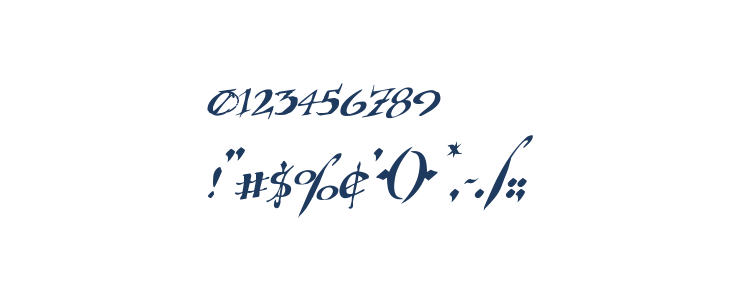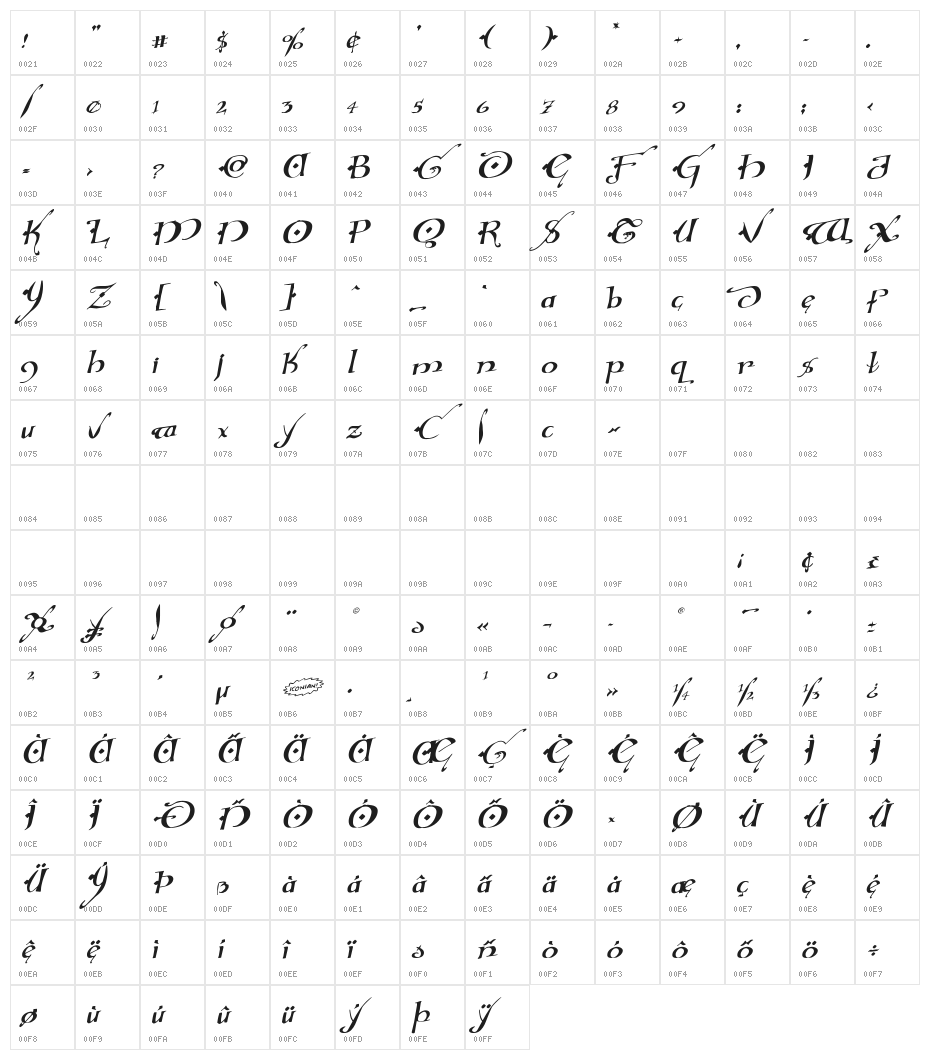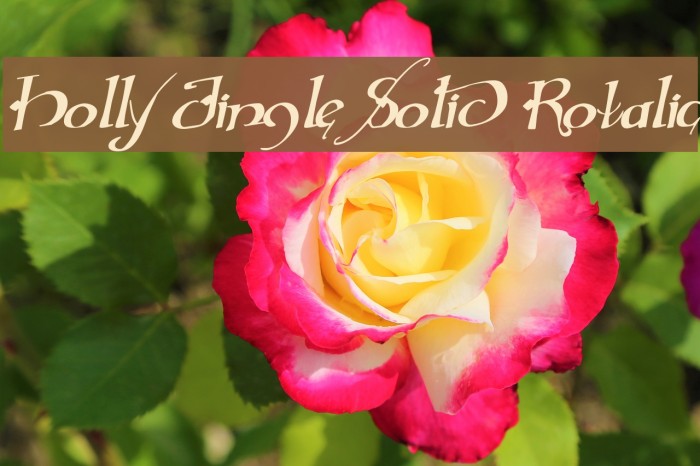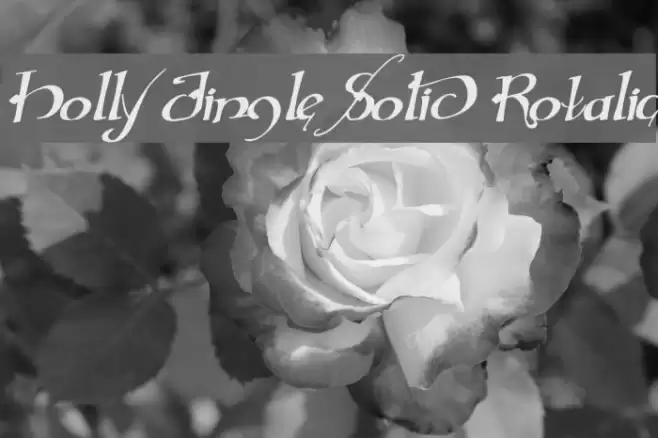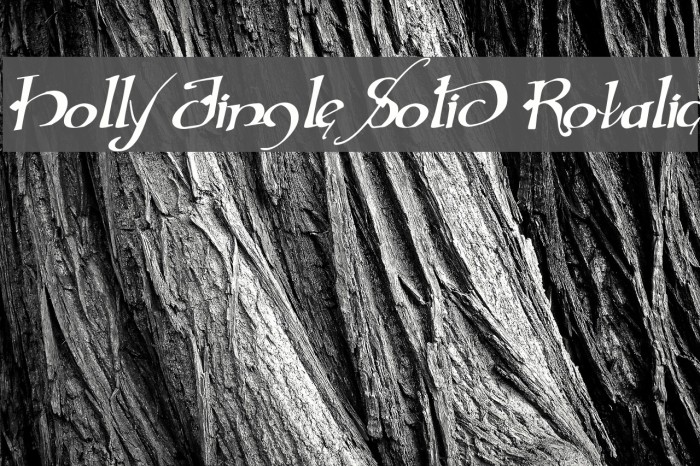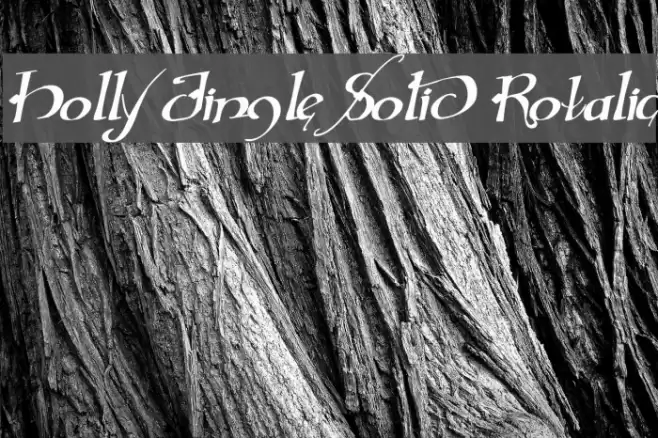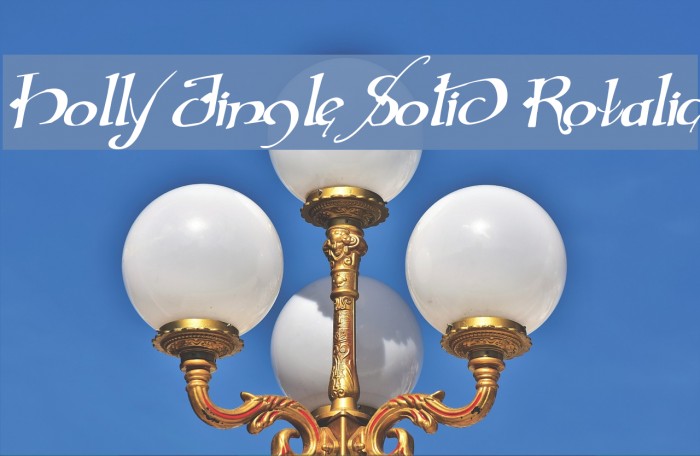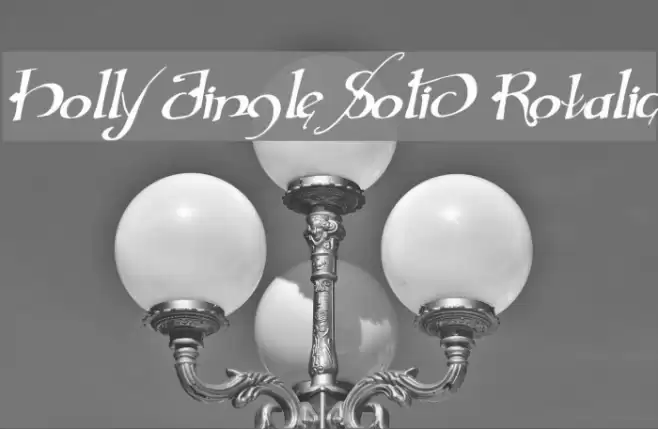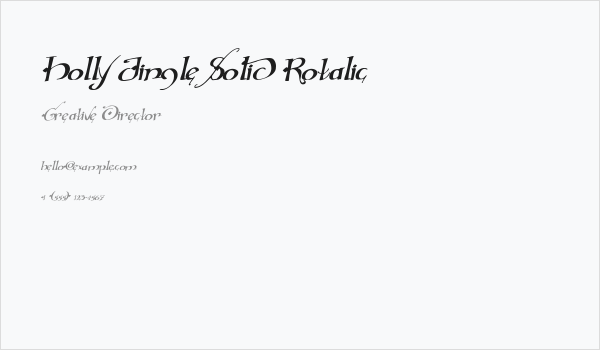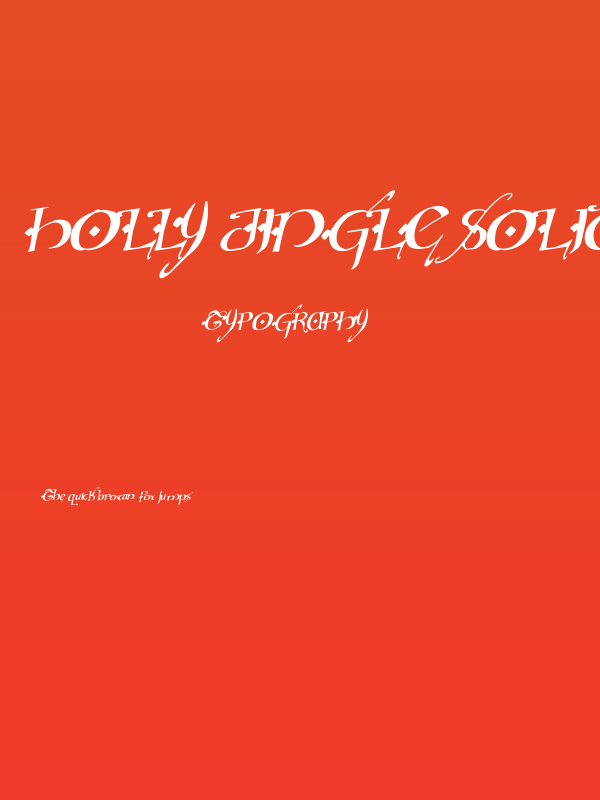
Holly Jingle Solid Rotalic Font
Holly Jingle Solid Rotalic Description
This font features an ornate and decorative style with a strong calligraphic influence. The characters are embellished with intricate swirls and flourishes, giving it a festive and elegant appearance. The uppercase letters are particularly elaborate, with unique loops and curves that add a sense of movement and flair. The lowercase letters maintain a consistent style, complementing the uppercase with their own subtle embellishments. Numbers and special characters are designed to match the overall aesthetic, ensuring a cohesive look across all text elements. This font is ideal for projects that require a touch of sophistication and artistic expression.
| Proposed Projects | Ideal for holiday cards, invitations, branding, and decorative headlines. |